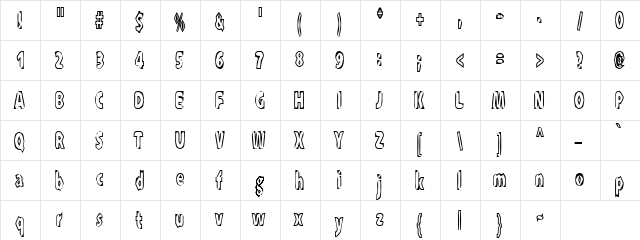
XRaytid Regular
Design Context for XRaytid Typeface
XRaytid is a composed and adaptable typeface that performs quietly and consistently across a wide range of design contexts.